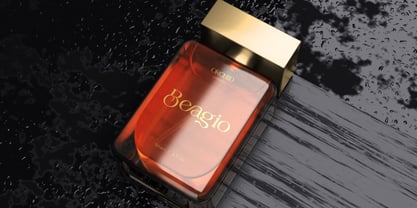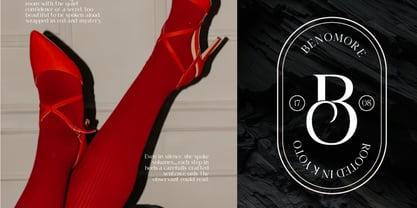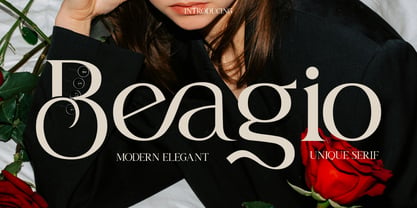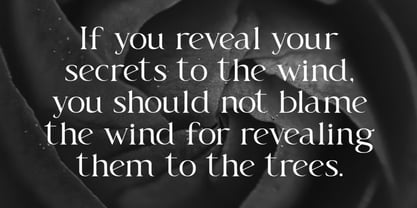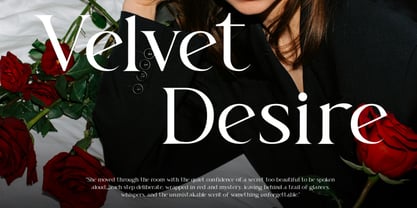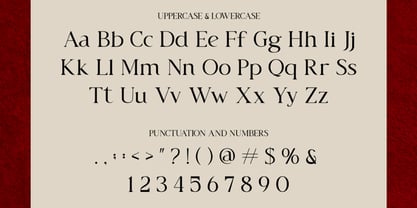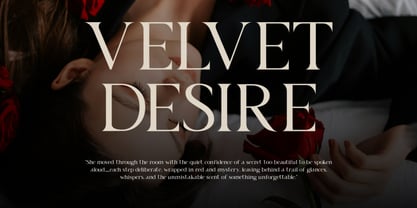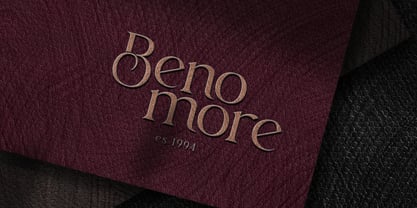
Beagio
Beagio is a modern elegant serif typeface crafted with high contrast strokes, refined curves, and stylish swashes that give it a distinctive, editorial flair. With a balance between artistic expression and professional clarity, Beagio includes full uppercase and lowercase characters, punctuation, and numerals. Beagio is relevant for creatives and designers aiming to craft high-end, emotionally resonant visuals with a touch of sophistication. Its fashionable curves and modern serif structure make it highly versatile suitable for upscale fashion magazines, perfume and skincare packaging, wedding branding, modern art posters.